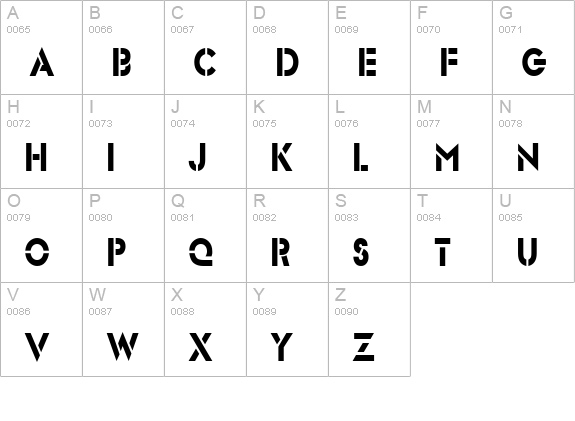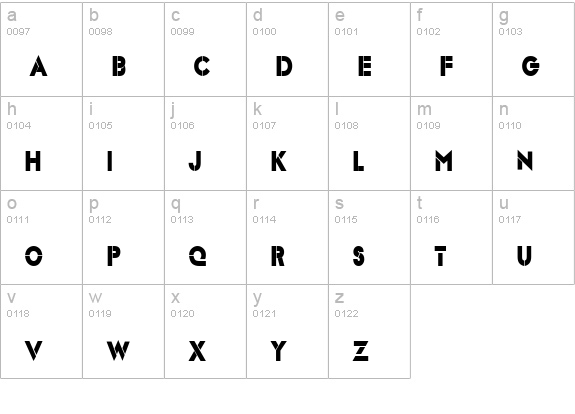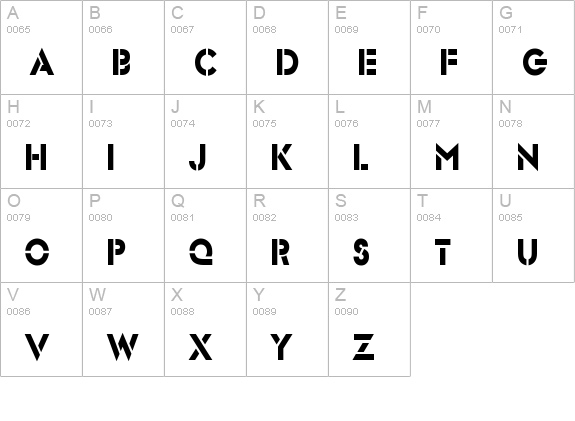
Templett S Condensed Bold Font Details
Templett S Condensed Bold is a strong, high-contrast, condensed-width variant in the Templett typeface family \xE2\x80\x94 well suited to headlines, attention-grabbing titles, and strong calls-to-action.
Templett S Condensed Bold font is a powerful and stylish typeface that exudes confidence and modernity. With its condensed design and bold weight, this font is perfect for making a strong statement in any project. Featuring clean lines and sharp edges, Templett S Condensed Bold font adds a touch of sophistication to any design. Whether you're creating eye-catching headlines, striking logos, or attention-grabbing posters, this font will make your text stand out from the crowd. One of the best things about Templett S Condensed Bold font is that it is absolutely free. Yes, you read that right! This font is freely available to download at FontsMarket.com. So, you can elevate your designs without spending a penny. With its versatility and bold character, Templett S Condensed Bold font is suitable for a wide range of design projects. From branding and advertising to web design and packaging, this font will bring a touch of elegance and professionalism to your work. Don't miss out on the opportunity to enhance your designs with Templett S Condensed Bold font. Download it for free at FontsMarket.com and let your creativity soar.